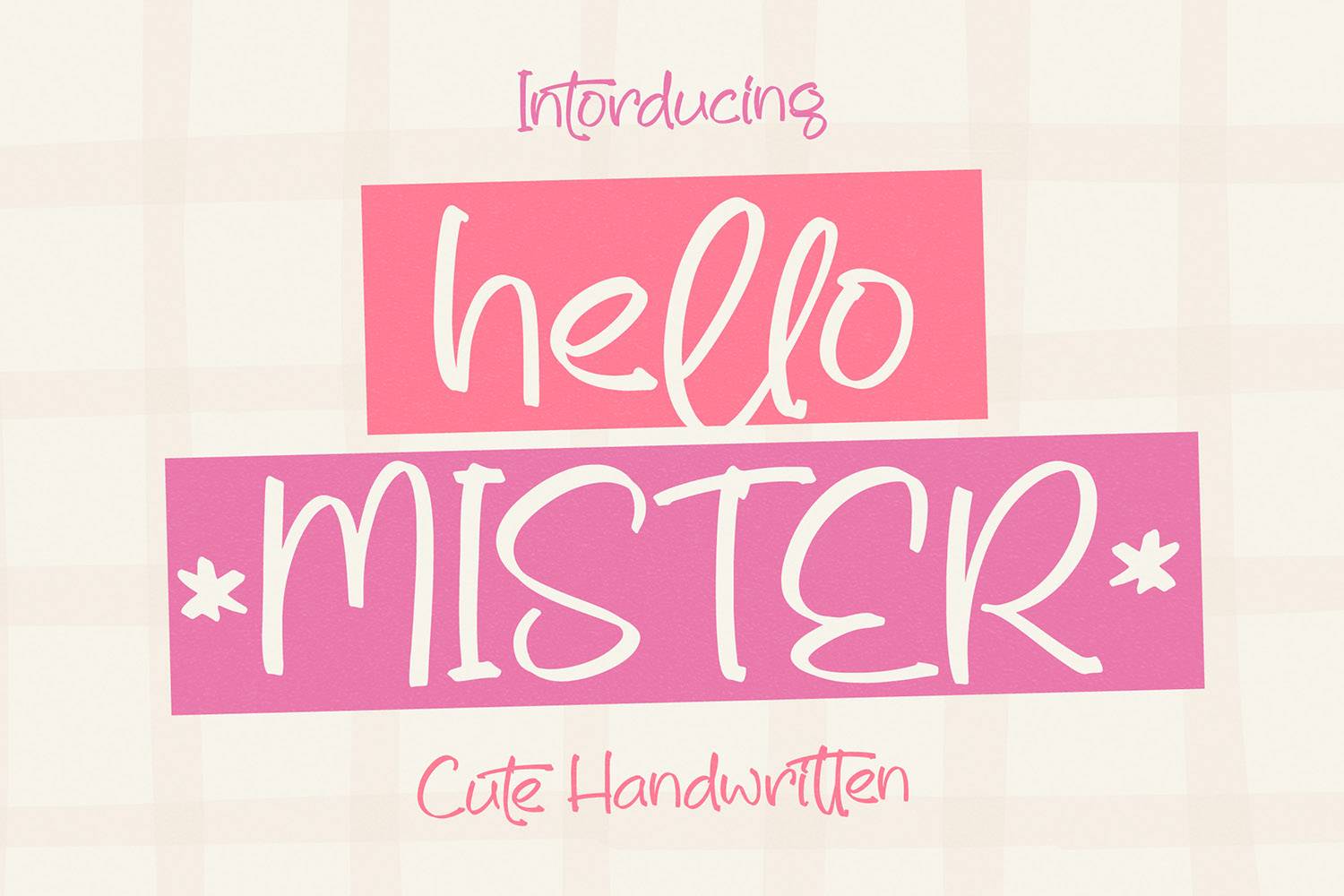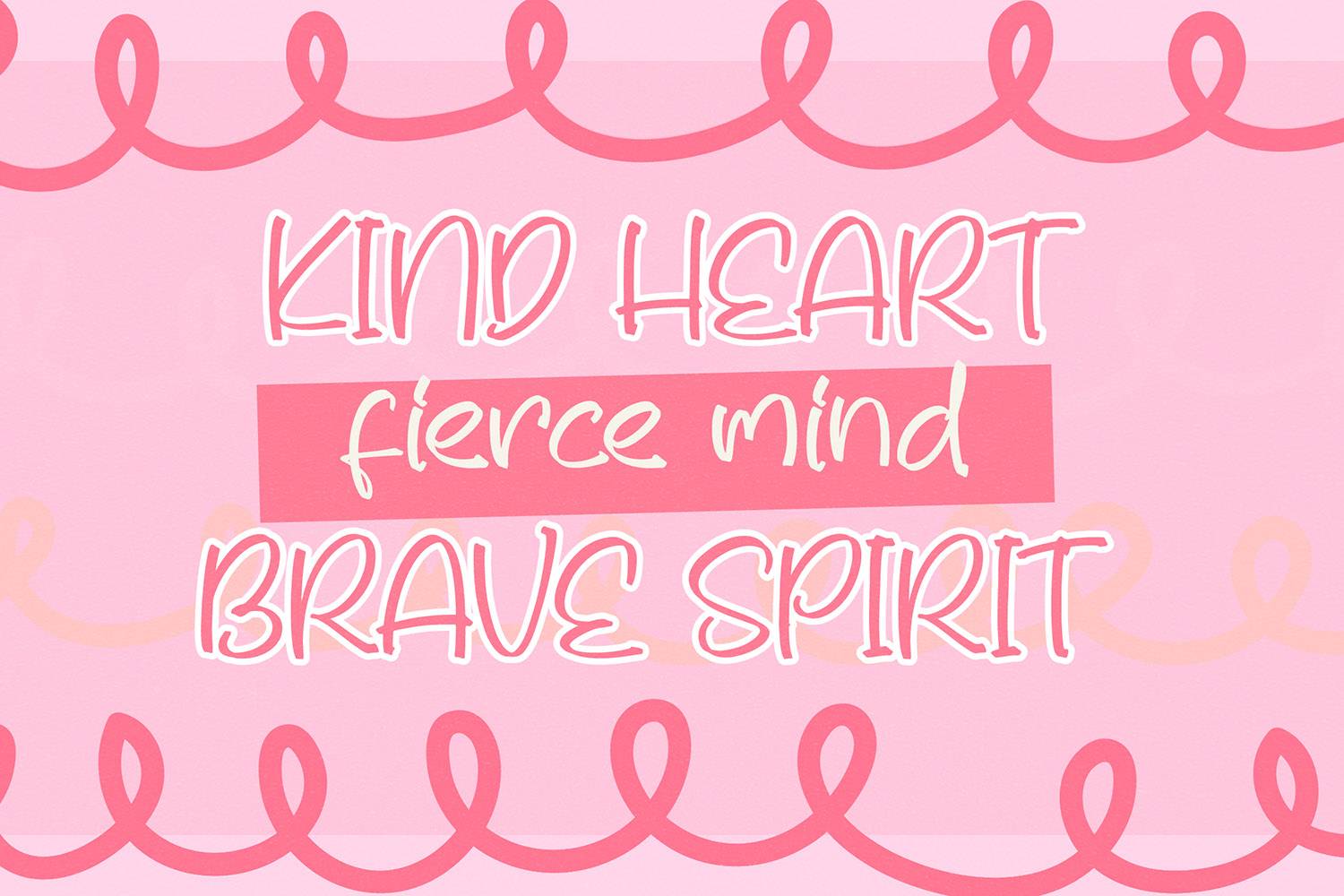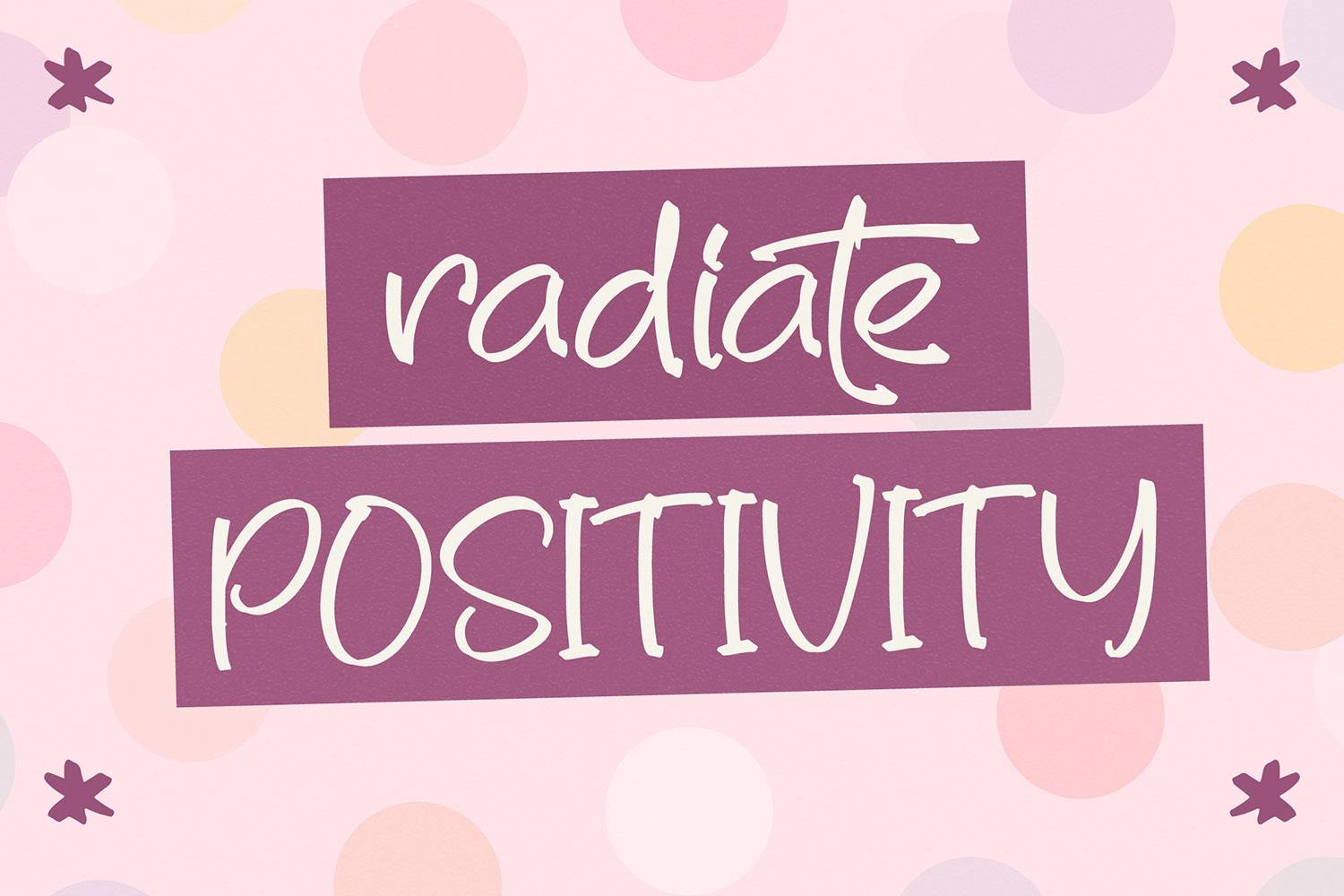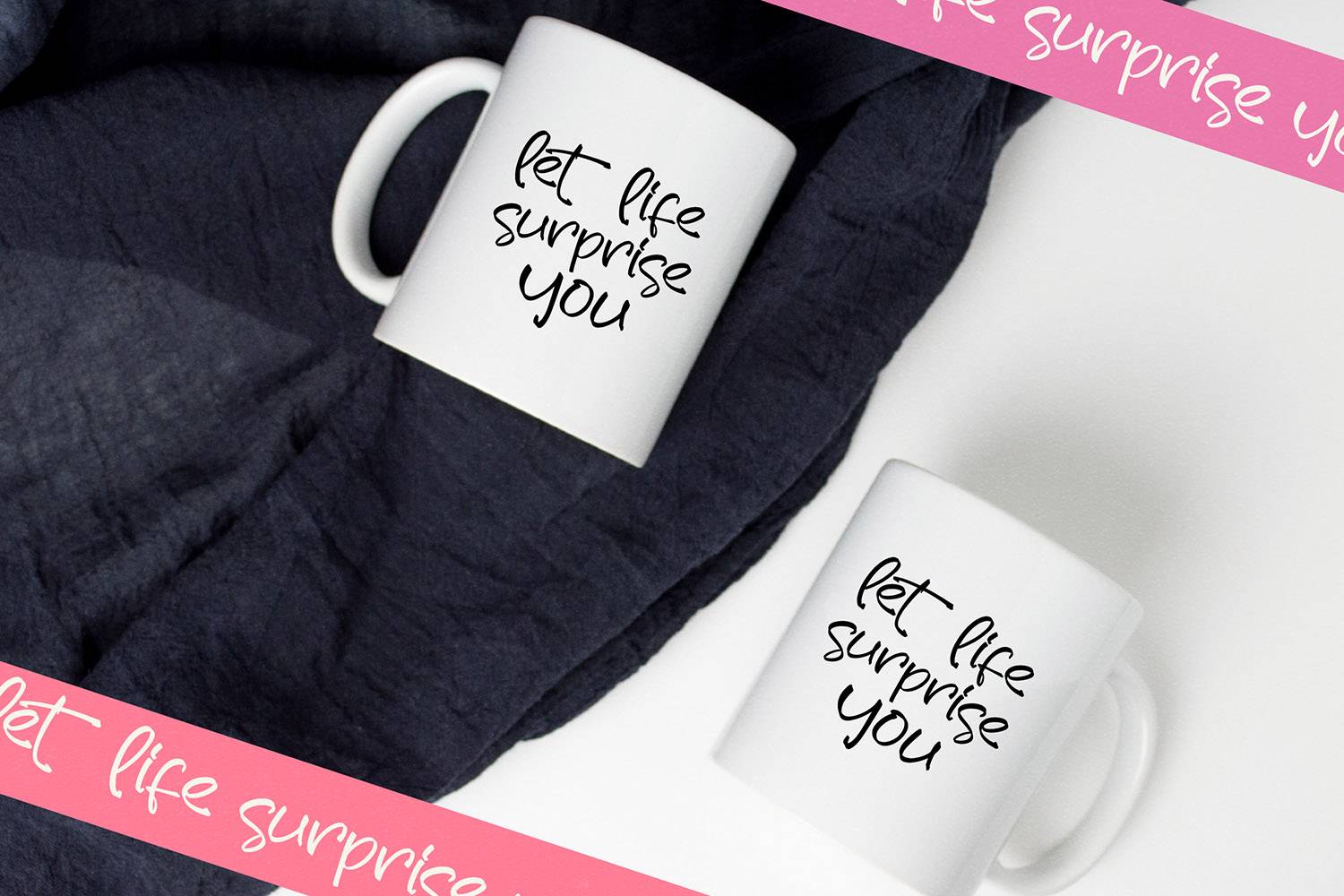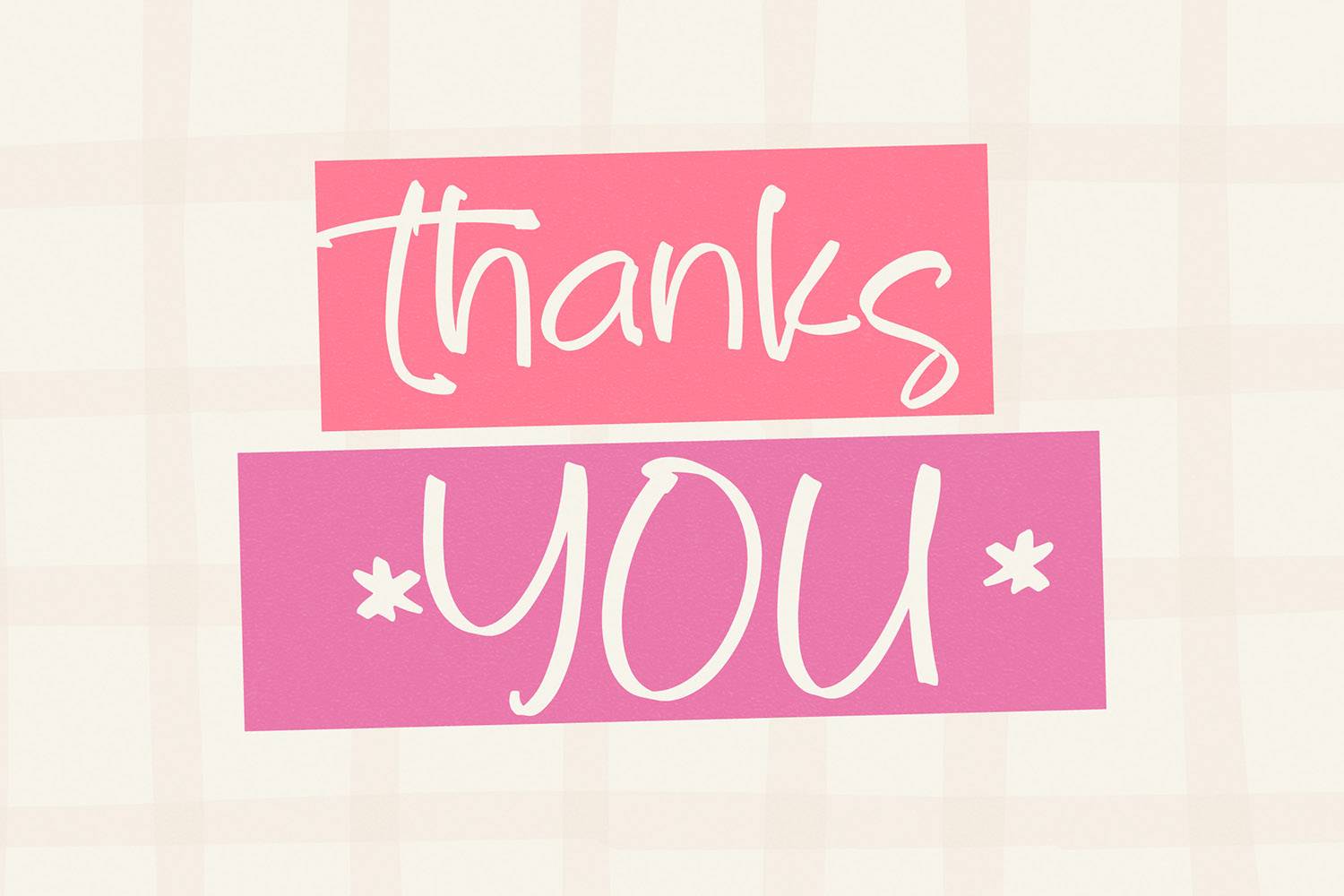
Hello Mister is a playful, casual handwritten font with an airy, whimsical feel. Its light strokes and slightly uneven letterforms give it a friendly, approachable personality, making it perfect for informal branding, fun invitations, or creative projects that seek a personal touch. This font works best in headlines and display uses where it can bring charm and individuality to the design.
Hello Mister Font
About Hello Mister Font
| Font family | Hello Mister Font |